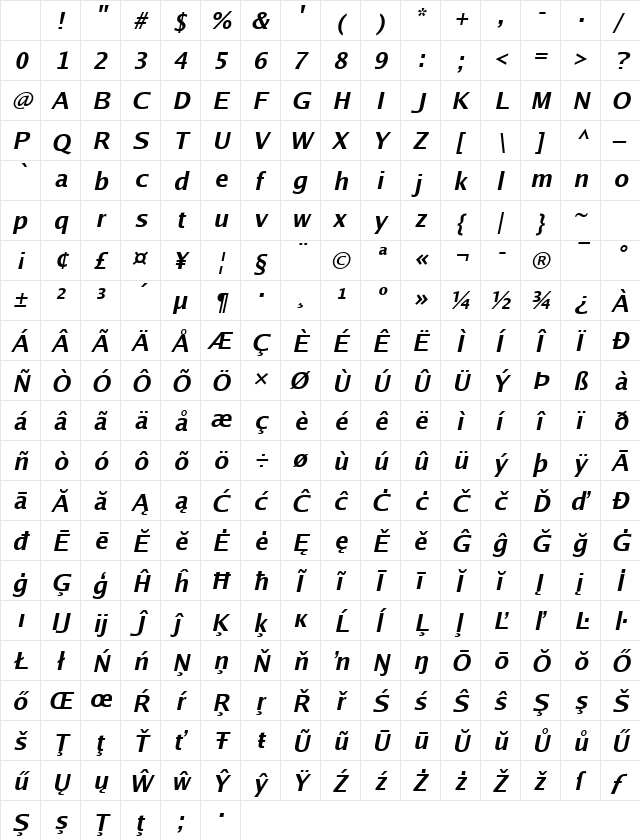
Complete Luxi Sans Bold Oblique glyph index. Displaying only characters natively supported by Luxi Sans Bold Oblique font.
Luxi Sans is a composed and adaptable typeface that performs quietly and consistently across a wide range of design contexts. The slanted form adds forward momentum and visual energy. Its bold stroke weight gives it real presence on the page.
Pro Tip: Use Luxi Sans for emphasis, pull quotes, and subheadings where its slanted energy can add rhythm to the layout.